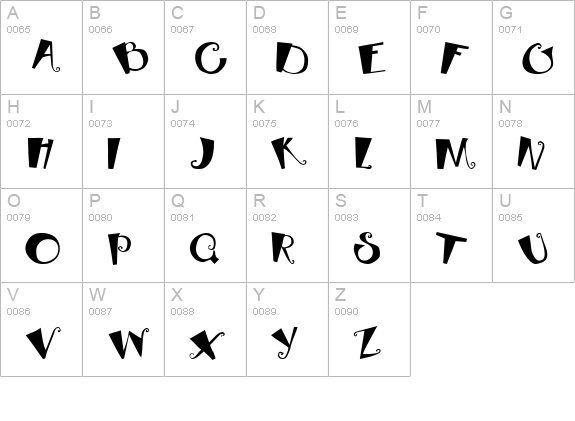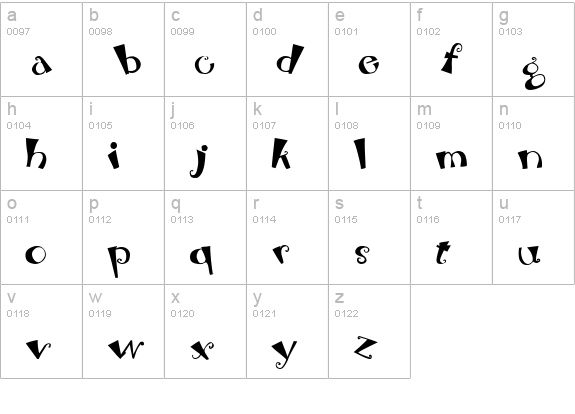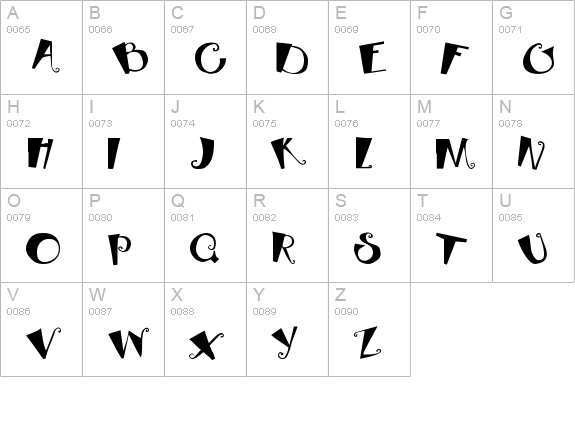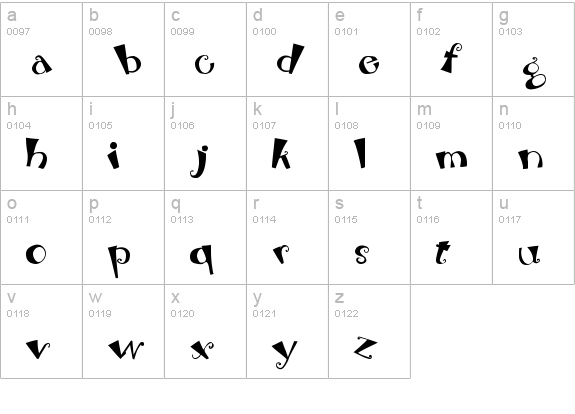
Bebop Font Details
Introducing Bebop font, a sleek and modern typeface that will bring a touch of sophistication to your design projects. With its clean lines and stylish curves, Bebop font is perfect for creating eye-catching headlines, logos, and branding materials. This versatile font is sure to make a statement and elevate the overall look of your work. And the best part? Bebop font is available for free download at FontsMarket.com! Simply visit the website to get your hands on this fantastic font and start using it in your projects today. Don't miss out on the opportunity to add Bebop font to your design toolkit and take your creations to the next level.